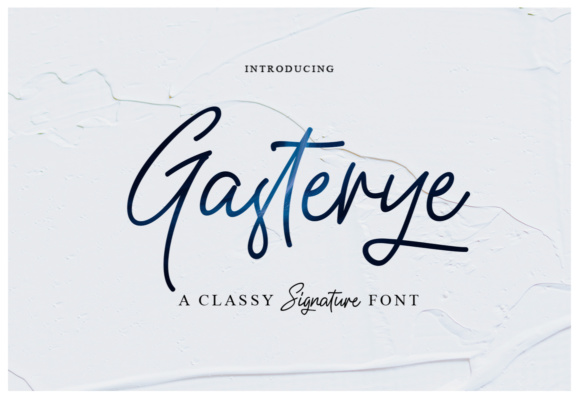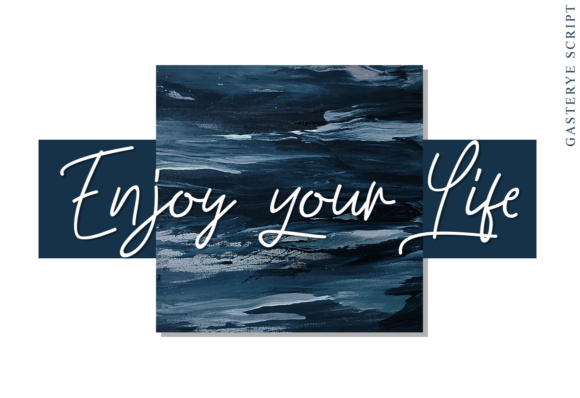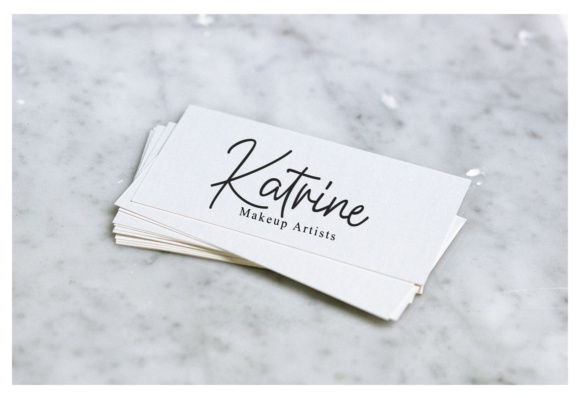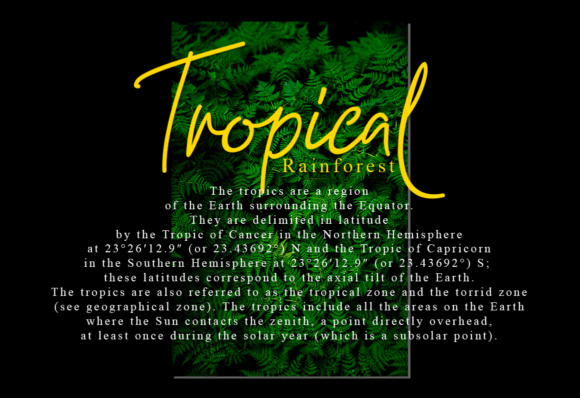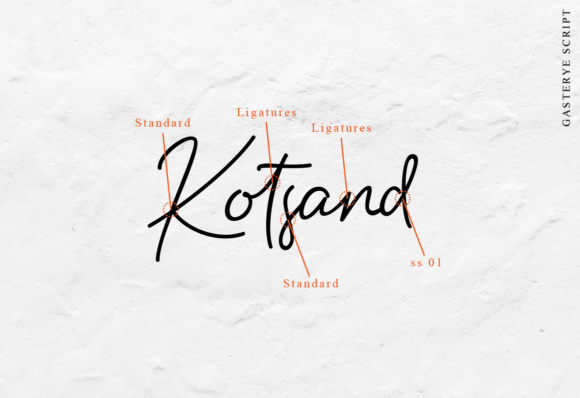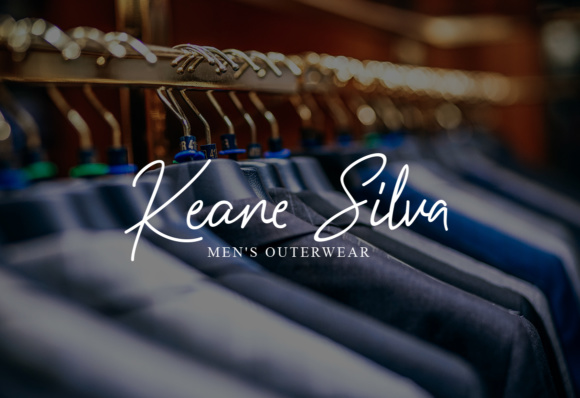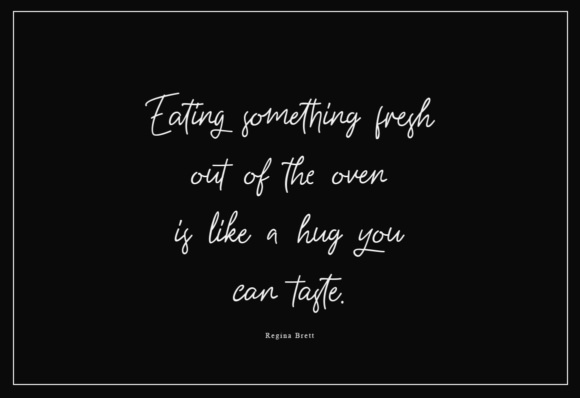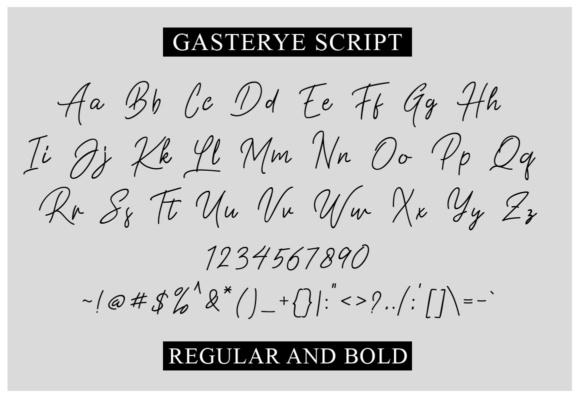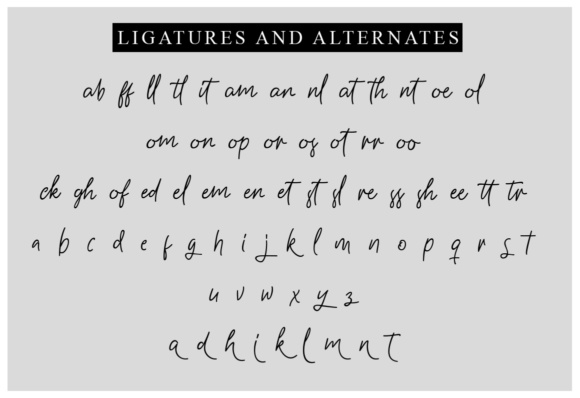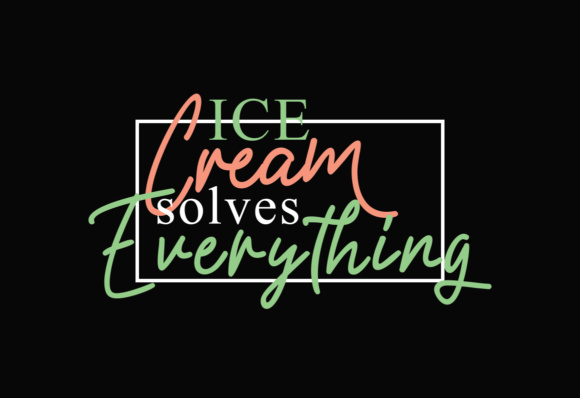
Gasterye Font
About Gasterye Font
Gasterye is a fun hand-lettered font, perfectly crafted to give your designs a relaxed yet sophisticated appeal. This font has a signature vibe, and comes with an added complementary marker font style.